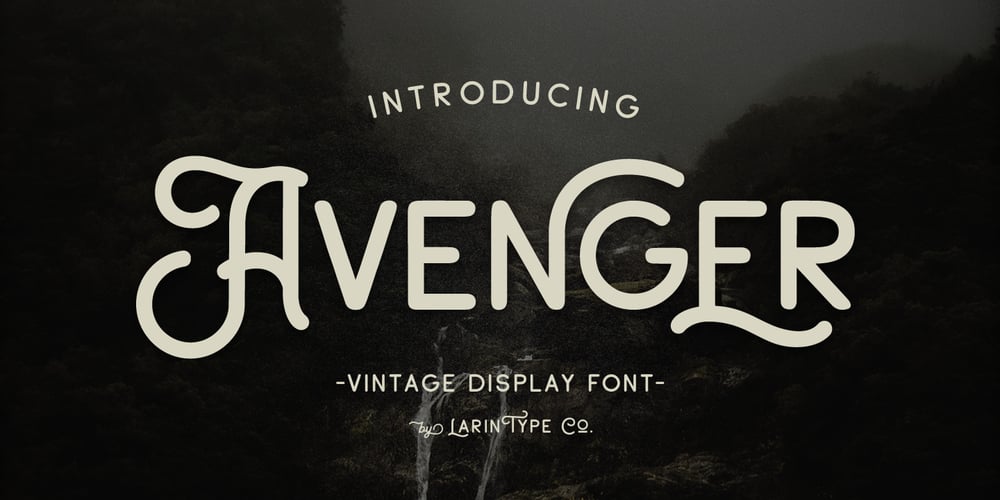
Avenger Font Family was designed by Pavel Larin and published by Larin Type Co. Avenger contains 1 styles and family package options. Avenger is a vintage screen font with many stylish alternative substitutes that will provide you with many options when working with your project. This font can be easier when using lowercase letters, as well as more playful, try using alternatives they will make your design unique.